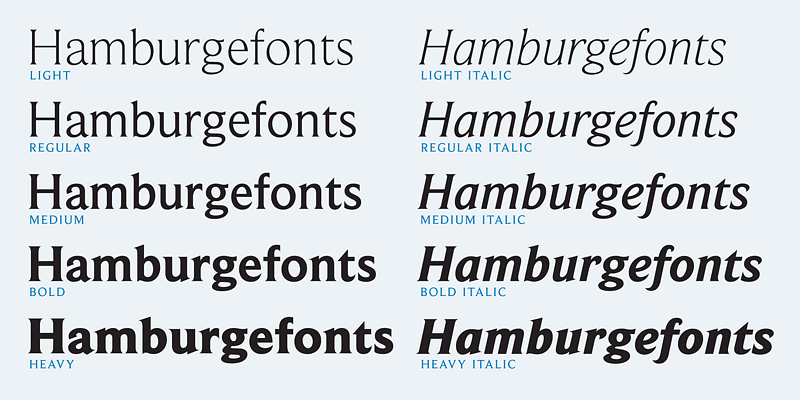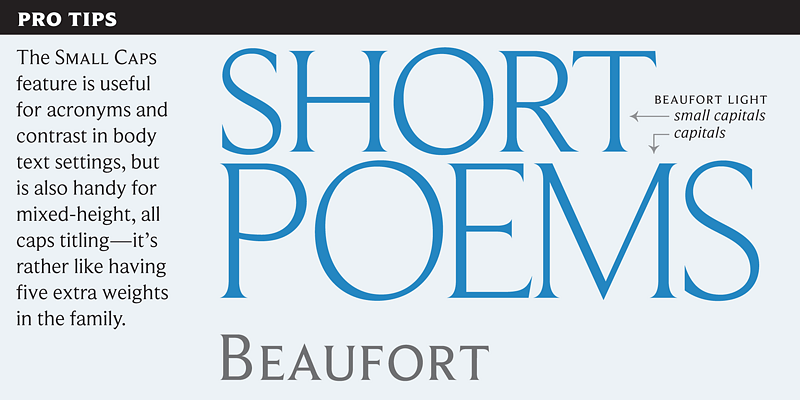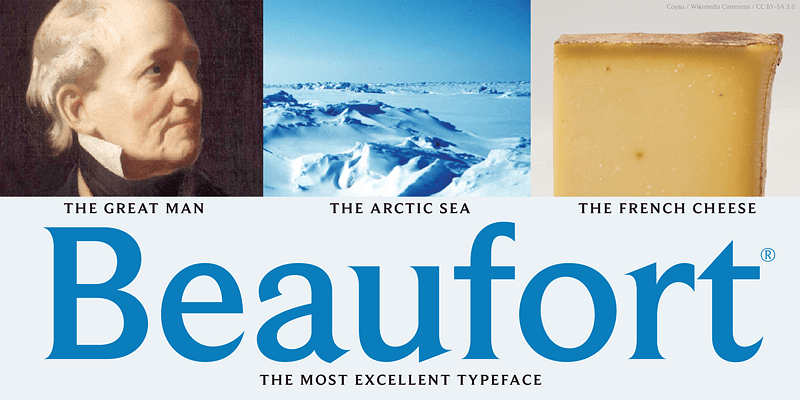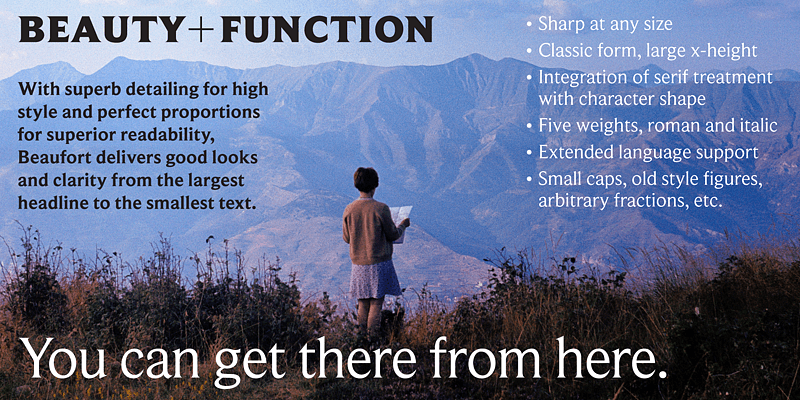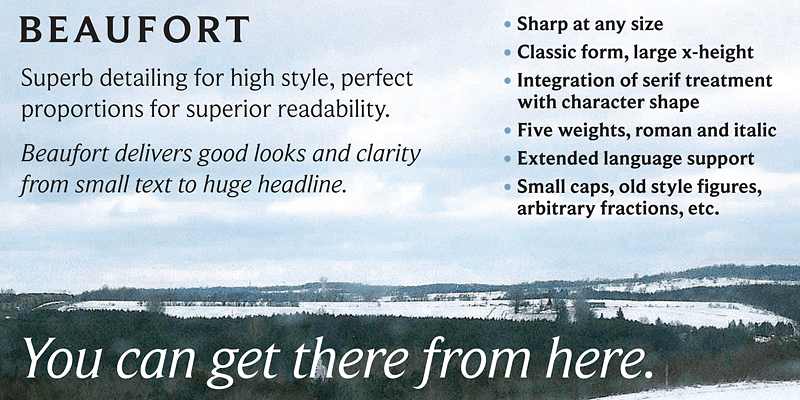
Engaging the issue of scalability, Beaufort® configures vectors for serifs of extreme sharpness—independent of type size, limited only by device resolution. Scale of effect confronts the typographer with a design axis stretching from awesomely huge to preciously tiny. How big is enough?